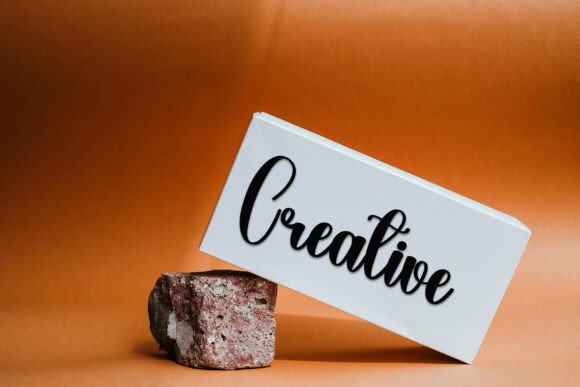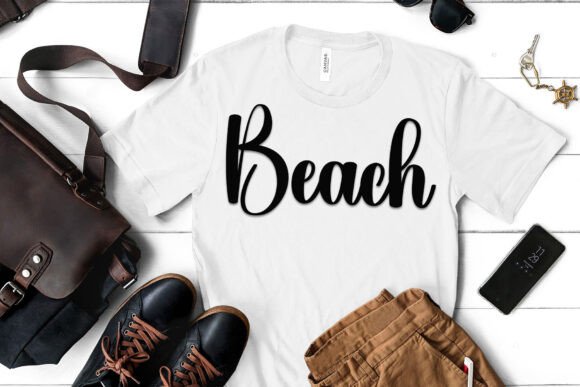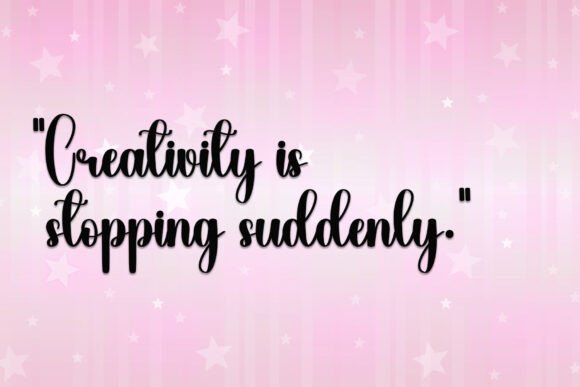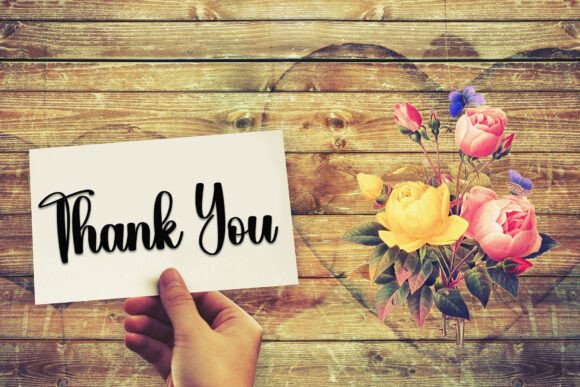
Cinematic Font: Elevate Your Designs with Timeless Elegance
In the world of design, typography plays a crucial role in conveying the tone and aesthetic of a project. For designers and crafters seeking to add a touch of sophistication and elegance to their work, the Cinematic Font is an exceptional choice. This trendy handwritten font boasts a contemporary atmosphere and impeccable form, drawing inspiration from timeless classic calligraphy.
The Essence of Cinematic Font
Cinematic is a carefully crafted font that embodies the perfect blend of modernity and classic charm. Its elegant strokes and refined lettering make it an ideal choice for designers looking to infuse their projects with a sense of luxury and refinement. Whether you’re working on a branding project, packaging design, or digital content, Cinematic Font is sure to elevate your work to new heights.
Key Features of Cinematic Font
- Trendy Handwritten Style: Cinematic Font features a beautiful, handwritten style that adds a personal touch to any design project.
- Contemporary Atmosphere: With its clean lines and modern aesthetic, this font is perfect for designers seeking to create a fresh and contemporary look.
- Impeccable Form: Cinematic Font boasts impeccable form, ensuring that your designs look polished and professional.
- Inspired by Classic Calligraphy: This font draws inspiration from timeless classic calligraphy, adding a touch of elegance and sophistication to any project.
Benefits of Using Cinematic Font
So, why choose Cinematic Font for your design projects? Here are just a few benefits of using this exceptional font:
- Elegance and Class: Cinematic Font adds a touch of elegance and class to any design project, making it perfect for luxury brands, high-end products, and sophisticated digital content.
- Versatility: This font is versatile and can be used in a variety of design projects, from branding and packaging to digital content and advertising.
- Easy to Read: Cinematic Font is easy to read, ensuring that your message is communicated clearly and effectively.
- Unique and Memorable: With its distinctive style and elegant lettering, Cinematic Font helps create unique and memorable designs that stand out from the crowd.
Design Tips and Best Practices
To get the most out of Cinematic Font, here are some design tips and best practices to keep in mind:
- Pair with Neutral Backgrounds: Cinematic Font looks best when paired with neutral backgrounds, allowing the elegant lettering to take center stage.
- Use in Headings and Titles: This font is perfect for headings and titles, adding a touch of elegance and sophistication to your designs.
- Experiment with Colors: Cinematic Font looks great in a variety of colors, so don’t be afraid to experiment and find the perfect hue for your design.
In conclusion, Cinematic Font is an exceptional choice for designers and crafters seeking to add a touch of elegance and sophistication to their work. With its trendy handwritten style, contemporary atmosphere, and impeccable form, this font is sure to elevate your designs to new heights. Whether you’re working on a branding project, packaging design, or digital content, Cinematic Font is the perfect choice for creating unique and memorable designs.